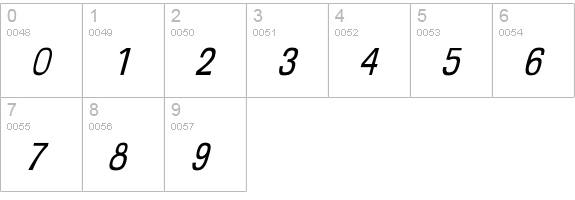
Imperfect-Oblique Font Details
Imperfect-Oblique is a distinctive, italic variant in the Imperfect typeface family \xE2\x80\x94 well suited to design and typography projects.
Imperfect-Oblique font, a stunning typographical masterpiece that effortlessly combines imperfections with a touch of obliqueness, is a true game-changer in the world of fonts. Designed with meticulous attention to detail, this font boasts a unique blend of organic shapes and subtle slant, resulting in a visually striking and captivating aesthetic. With its imperfect edges and charming irregularities, Imperfect-Oblique font exudes a sense of authenticity and character that is often missing in more conventional typefaces. This font's distinctive oblique angle adds an extra layer of intrigue, lending an artistic flair to any design project it graces. Not only does Imperfect-Oblique font possess an unparalleled visual appeal, but it also offers unparalleled versatility. Its wide range of weights and styles allows for seamless integration into various design contexts, whether it be for branding, headlines, advertising, or even body text. What makes this font even more remarkable is that it is freely available to download at FontsMarket.com. As a designer's dream come true, Imperfect-Oblique font offers a perfect balance between elegance and uniqueness, all while being easily accessible to anyone seeking to elevate their design game. So, whether you are a seasoned designer looking to add a touch of artistic flair to your latest project or a budding creative seeking a font that stands out from the crowd, look no further than Imperfect-Oblique font. Download it today and experience the true power of this free and extraordinary typeface.